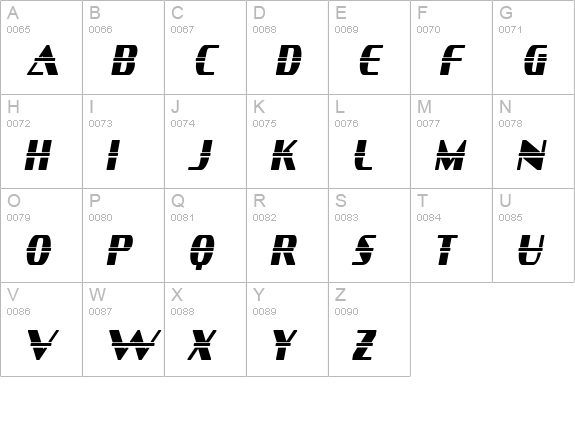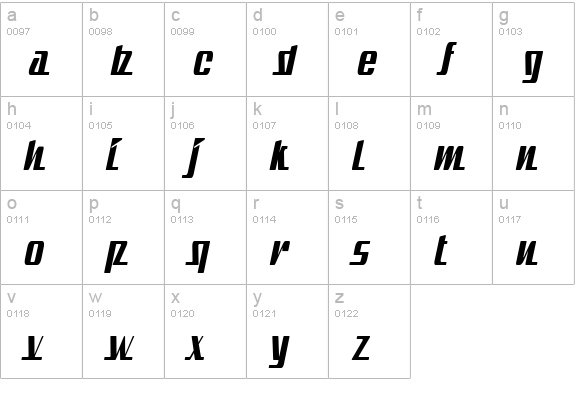
Sandoval Font Details
Introducing Sandoval, a captivating and versatile font that is sure to leave a lasting impression. With its unique and sophisticated design, Sandoval effortlessly combines classical elegance with a modern twist. This free font offers a wide range of weights and styles, allowing you to experiment and create stunning typography for various projects. Whether you're designing a logo, crafting a magazine layout, or working on a website, Sandoval's versatility ensures that it will seamlessly adapt to any creative endeavor. Designed with meticulous attention to detail, each letterform is carefully crafted to exude a sense of grace and refinement. The flowing curves and sharp angles of Sandoval create a harmonious balance, making it a truly captivating choice for both display and body text. But what truly sets Sandoval apart is its accessibility. It is freely available to download at FontsMarket.com, making it easily accessible to designers, enthusiasts, and typophiles alike. Say goodbye to limitations and embrace the boundless possibilities of Sandoval as you embark on your creative journey. Whether you're aiming to make a bold statement or convey a subtle elegance, Sandoval is the perfect companion for all your typographic adventures. Download this exceptional font today and let your creativity soar to new heights.